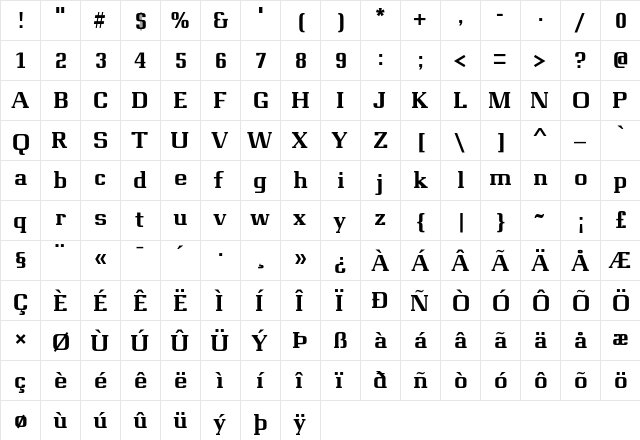
Merci Regular
Design Context for Merci Typeface
Merci offers clean, dependable letterforms without strong stylistic allegiance, making it a practical choice for designers who need flexibility.
Pro Tip: Pair Merci with a font of contrasting weight or personality to build a more expressive typographic hierarchy.